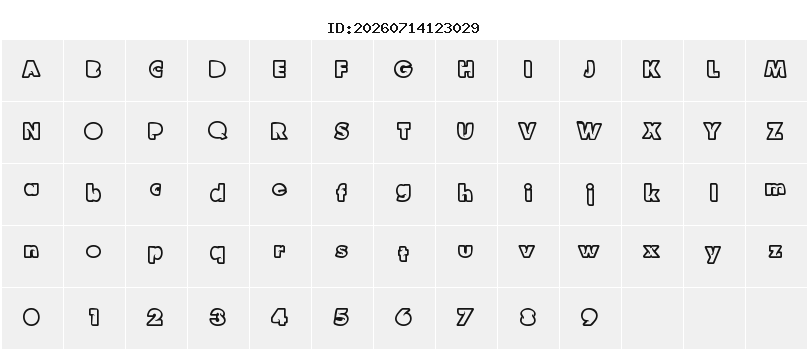
HawtComix Preview
• Font Name: HawtComix
• Full Font Name: HawtComix
• Version: Version 1.00 August 12, 2014, initial release
• Designer: Xerographer Fonts Max Infeld
• Manufacturer: Xerographer Fonts
• Description: Made at Xerographer Studios in Redding,CA
About HawtComix.ttf
HawtComix.ttf is a modern, elegant sans-serif font designed for ultimate readability and visual harmony. Perfect for branding, headlines, web design, and print materials.